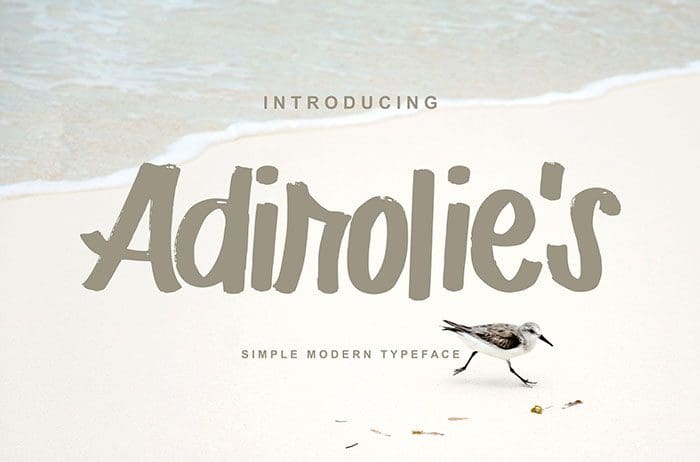
Adirolies is a relaxed handwritten font. Perfect fit for all of your logos, branding, social media, and crafty DIY projects. This font free for personal use only, if you need commercial use and full version please download in here.